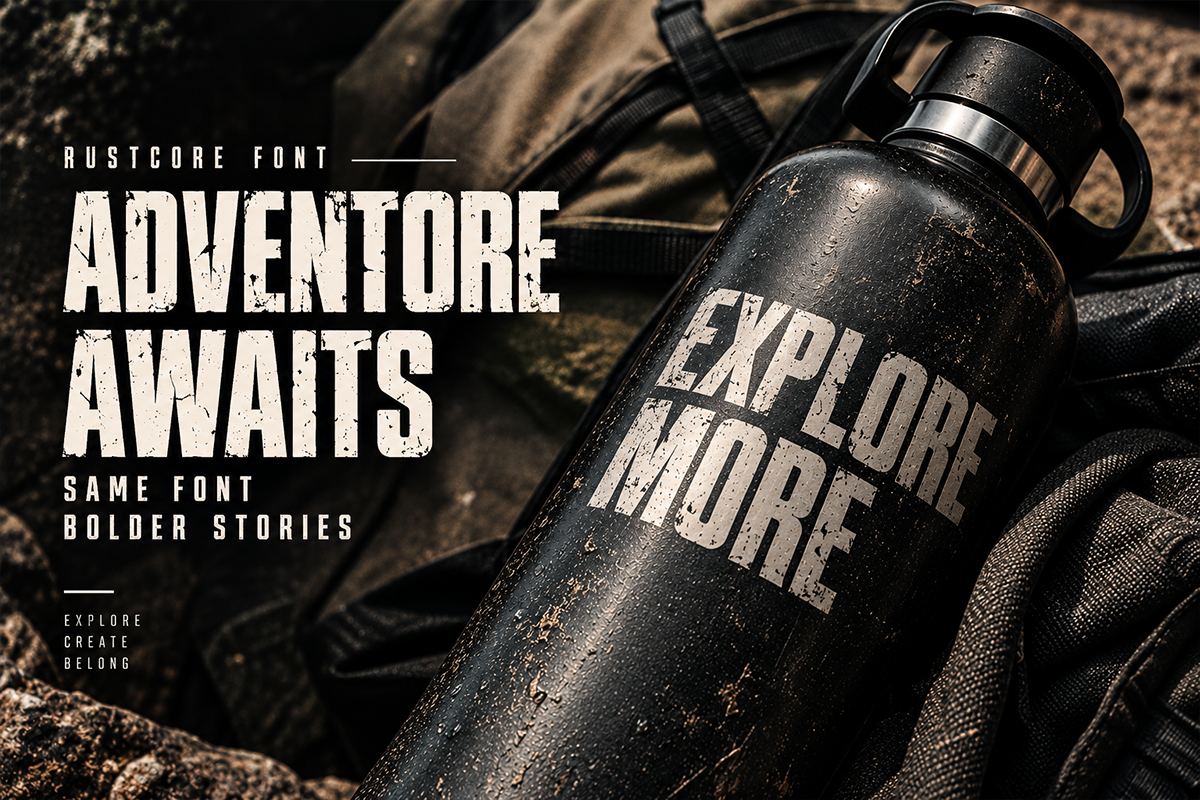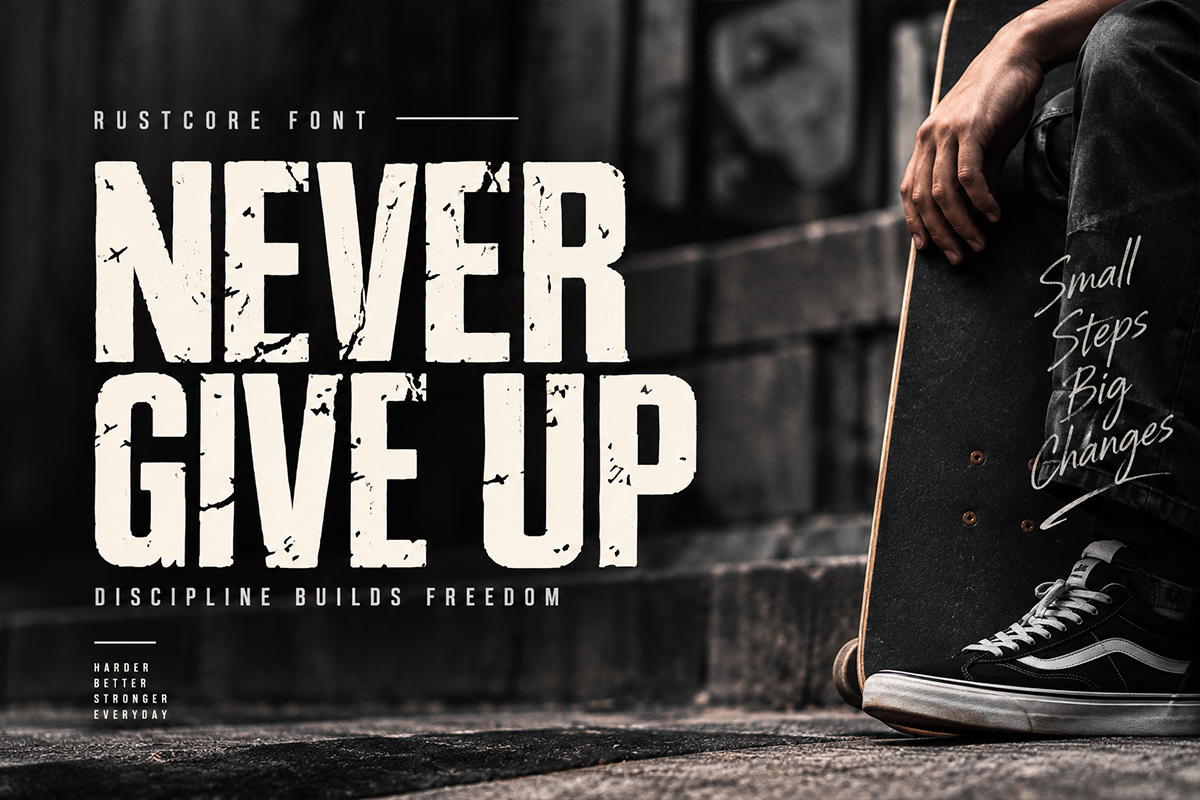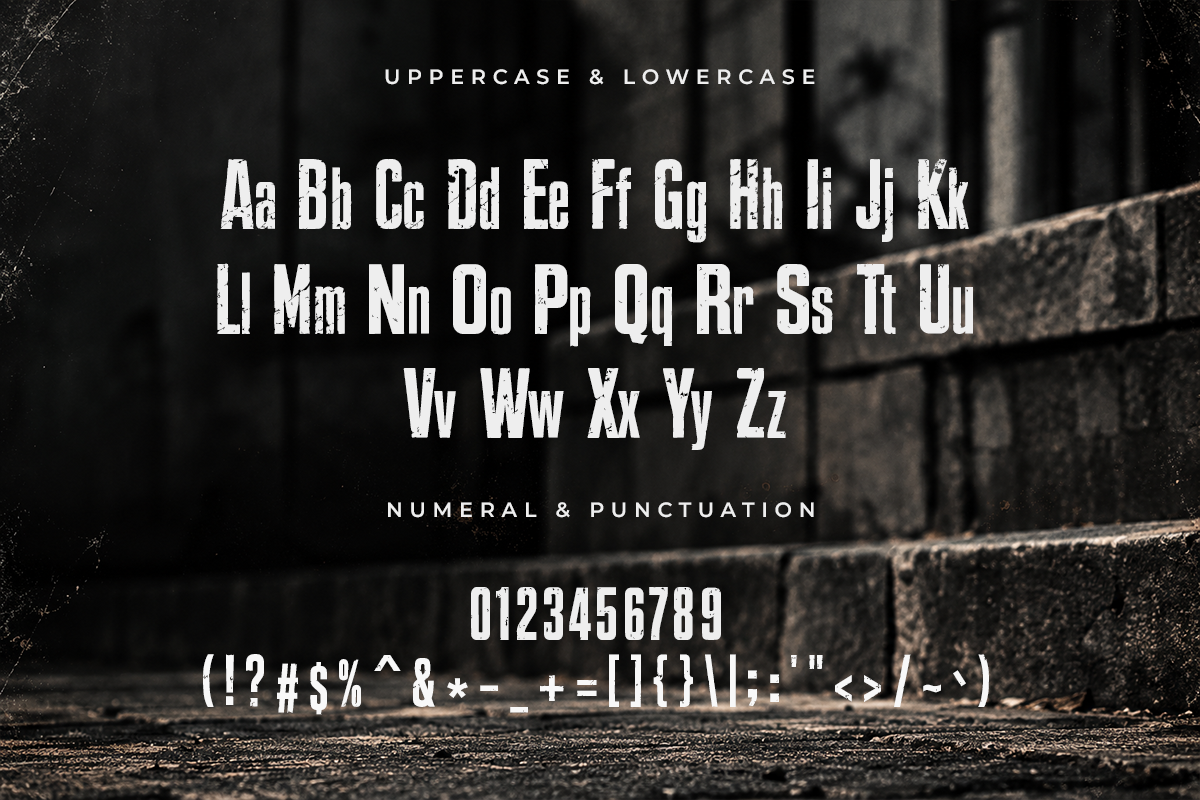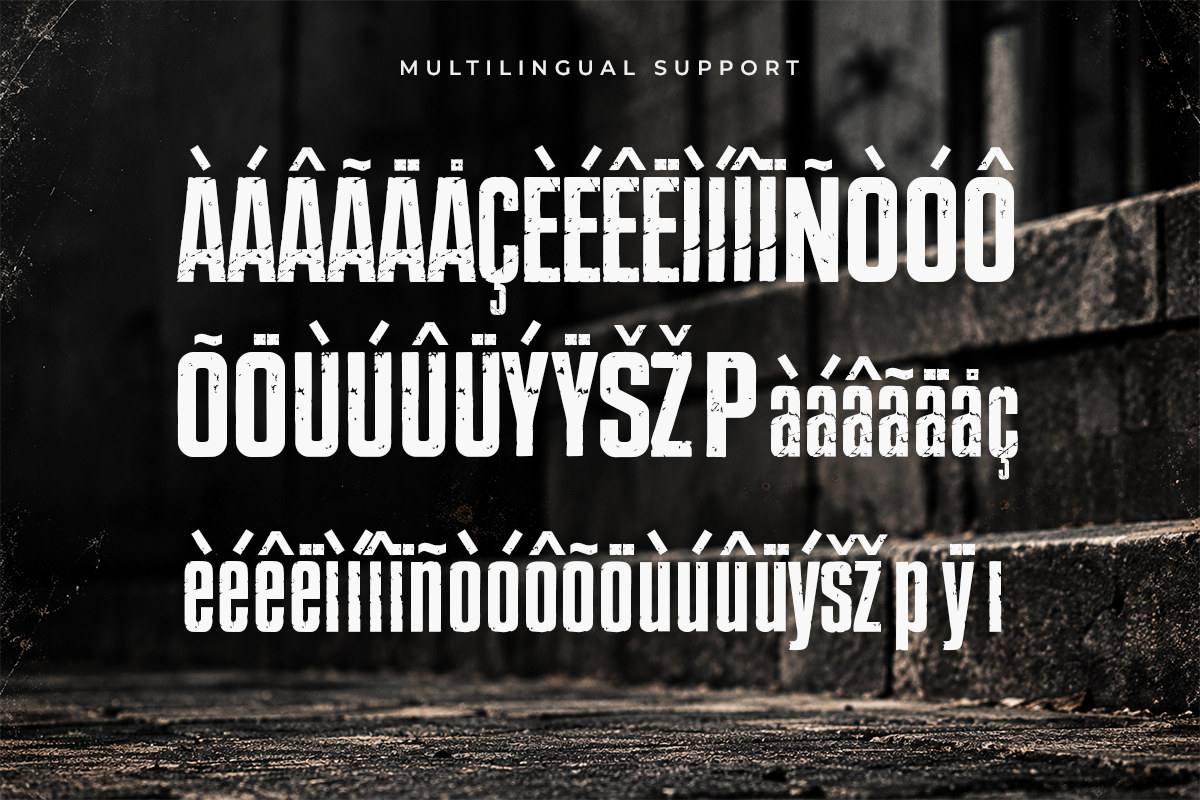
Rustcore A Modern Grunge Display Font is a bold modern grunge display font created for designs that need strength, texture, and a rugged outdoor character. With its heavy letterforms, distressed surface, and raw industrial feel, this typeface delivers a powerful visual impact while keeping a strong and readable structure.
Inspired by adventure, exploration, outdoor gear, street culture, and vintage utility graphics, Rustcore is a great choice for posters, apparel, branding, logos, packaging, album covers, sports graphics, merchandise, social media designs, and outdoor-themed projects.
Its rough texture and solid construction make Rustcore especially effective for headlines, titles, and statement typography that needs to feel bold, fearless, and authentic.